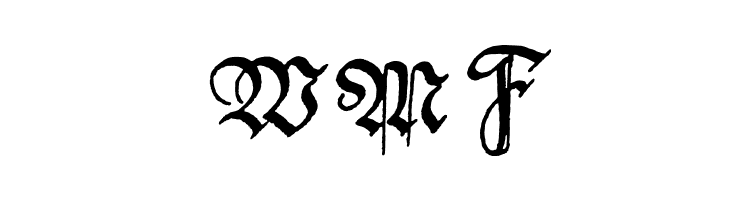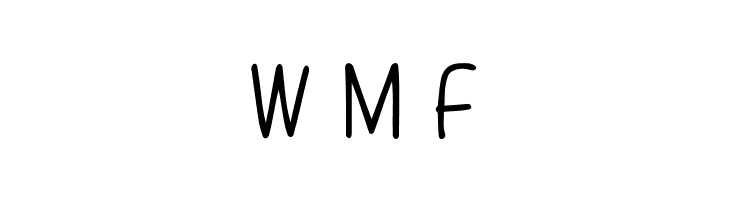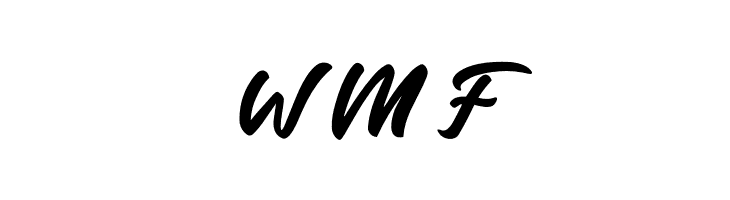
A bold, electrified font with jagged edges and high contrast.
A bold, playful font with thick, rounded characters and a friendly vibe.
A dripping, horror-themed font with a liquid-like appearance.
A playful, whimsical font with decorative shapes and symbols.
A bold, rounded, and playful font with a modern and friendly appearance.
A playful, rounded typeface with smooth curves and a friendly appearance.
A playful, rounded font with smooth curves and a modern, friendly appearance.
A friendly, rounded font with smooth, balanced characters.
A playful, rounded font with smooth curves and a friendly appearance.
A bold, rounded font with smooth curves and a friendly appearance.
A playful, rounded font with smooth curves and a friendly, modern appearance.
A playful, rounded font with a modern and friendly appearance.
A modern, rounded font with a friendly and approachable style.
A bold and flowing script font with high contrast and elegant cursive style.
A bold, expressive script font with fluid strokes and high contrast.
A bold, geometric font with a modern and edgy style.
A decorative blackletter font with intricate and ornate design elements.
A playful, handwritten font with smooth, rounded edges and a casual, friendly appearance.
A rounded, modern typeface with clean lines and a friendly appearance.
A playful, rounded font with smooth curves and a friendly appearance.
A playful, handwritten font with dynamic and fluid strokes.
A bold, geometric font with a layered outline effect, perfect for impactful headlines.
A playful, rounded font ideal for children's materials with a friendly and whimsical style.
A bold, rounded font with a playful and friendly style.
A bold, expressive brush-style font with dynamic strokes and a hand-painted look.
A flowing, elegant cursive script with interconnected characters and smooth curves.
A decorative script font with elegant, flowing letterforms and ornate details.
A bold, cursive script font with a dynamic and energetic style.
A bold, playful script font with a friendly, handwritten style.
A bold, playful font with rounded strokes and a friendly appearance.
A bold, condensed font with modern, sleek lines and high legibility.
A bold, geometric typeface with clean lines and strong visual impact.